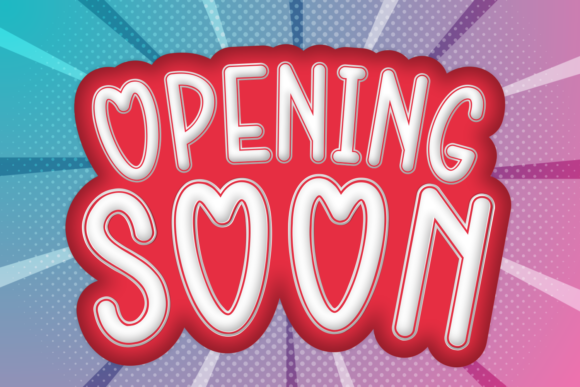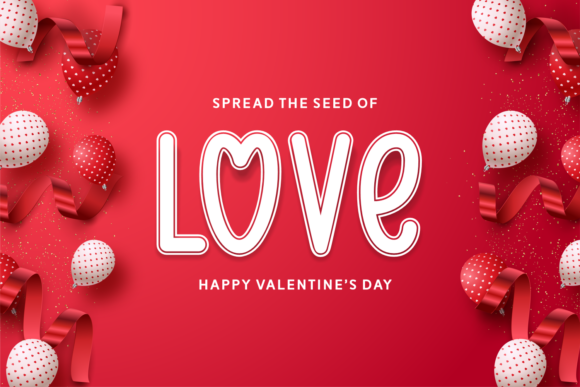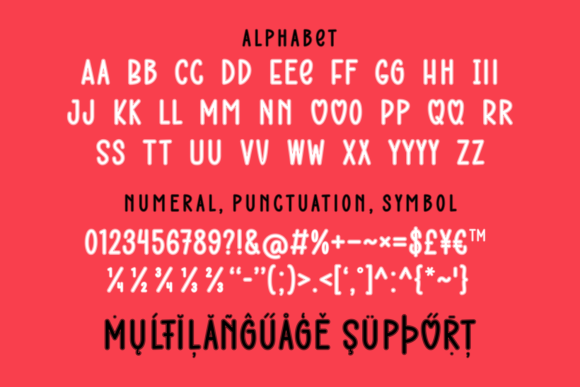
Introducing Good Sides Font: The Perfect Addition to Your Design Arsenal
Are you tired of using the same old fonts in your designs? Look no further than Good Sides Font, a cute, adaptable, and friendly display font that’s perfect for adding a clean and neat touch to your projects. In this article, we’ll dive into the features and benefits of Good Sides Font, and explore how it can elevate your designs to the next level.
What is Good Sides Font?
Good Sides Font is a display font designed to bring a touch of friendliness and approachability to your designs. With its clean lines, simple shapes, and adorable aesthetic, this font is perfect for designers and crafters looking to add a personal touch to their work. Whether you’re creating a logo, heading, or social media graphic, Good Sides Font is an excellent choice.
Key Features of Good Sides Font
- Cute and Adaptable: Good Sides Font is designed to be versatile and adaptable, making it perfect for a wide range of design applications.
- Clean and Neat: The font features clean lines, simple shapes, and a minimalistic aesthetic, making it perfect for designs that require a touch of elegance.
- Easy to Read: Good Sides Font is optimized for readability, making it perfect for headings, titles, and short paragraphs of text.
- Multilingual Support: The font supports multiple languages, making it a great choice for designers working on international projects.
Benefits of Using Good Sides Font
So why choose Good Sides Font for your next design project? Here are just a few benefits of using this amazing font:
- Adds a Personal Touch: Good Sides Font brings a touch of personality and whimsy to your designs, making them stand out from the crowd.
- Perfect for Branding: The font’s friendly and approachable aesthetic makes it perfect for branding projects, such as logos, business cards, and letterheads.
- Easy to Pair: Good Sides Font pairs well with a wide range of other fonts, making it easy to mix and match to create a unique look.
- Supports Creative Freedom: With Good Sides Font, you can experiment with different styles, colors, and layouts to create a design that’s truly unique.
Design Ideas Using Good Sides Font
So, how can you use Good Sides Font in your designs? Here are a few ideas to get you started:
- Social Media Graphics: Use Good Sides Font to create eye-catching social media graphics, such as Facebook posts, Instagram stories, and Twitter headers.
- Logo Design: Create a custom logo for your business or brand using Good Sides Font.
- Invitations and Cards: Add a personal touch to your invitations, greeting cards, and postcards with Good Sides Font.
- Web Design: Use Good Sides Font as a heading font for your website, or as a accent font to add visual interest.
In conclusion, Good Sides Font is a versatile and adorable display font that’s perfect for designers and crafters looking to add a personal touch to their work. With its clean lines, simple shapes, and friendly aesthetic, this font is sure to become a staple in your design arsenal. So why wait? Download Good Sides Font today and start creating stunning designs that stand out from the crowd!